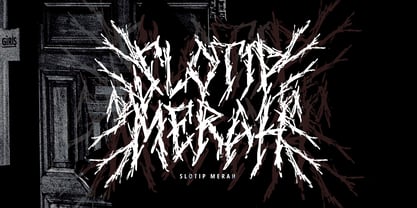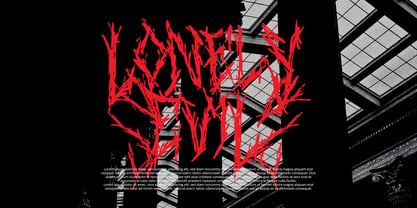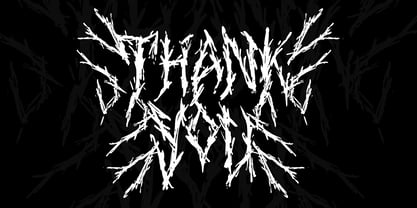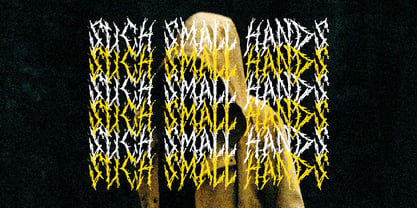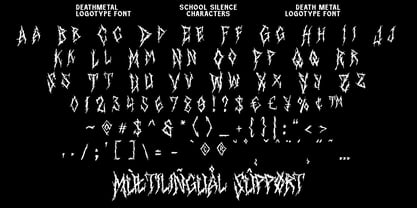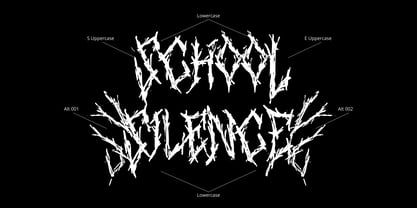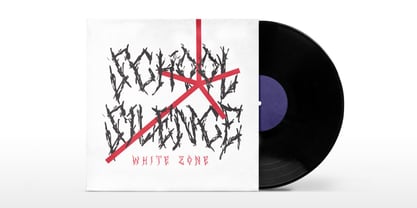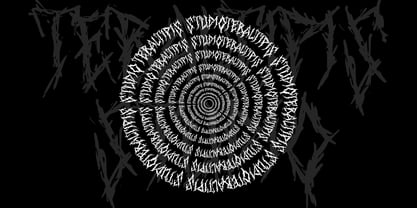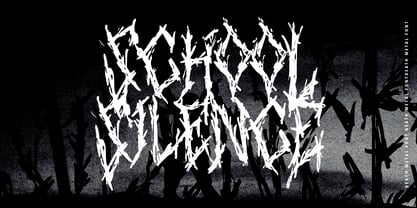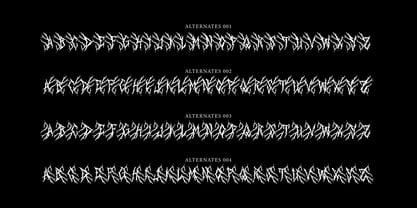
School Silence Display
by Tebaltipis Studio
The School Silence Display Font Family was designed by Dzulka Elfira and published by Tebaltipis Studio. School Silence Display contains 1 styles. More about this family
School Silence is a cool alternative for you to easily create a logo for your Underground band or whatever. Using alternate front and ending letters brings the font to life, It comes with a basic character set and a small group of symbols and signs often used in the extreme music sector – the classics of Death- and Blackmetal like pentagram drops, roots, spikes and more.
Designers: Dzulka Elfira
Foundry: Tebaltipis Studio